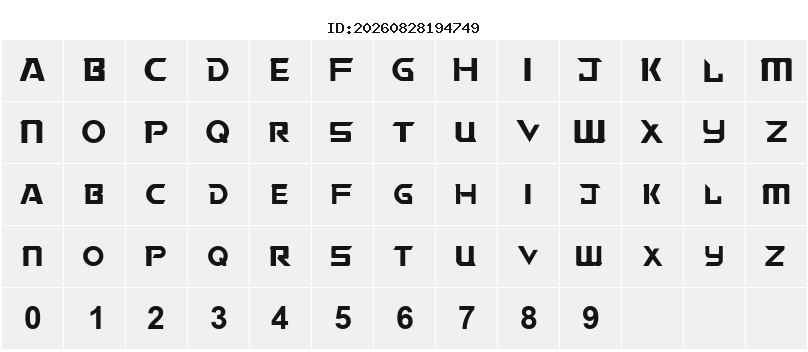
Tiberium Preview
• Font Name: Tiberium
• Full Font Name: Tiberium
About Tiberium.ttf
Tiberium.ttf is a modern, elegant sans-serif font designed for ultimate readability and visual harmony. Perfect for branding, headlines, web design, and print materials.